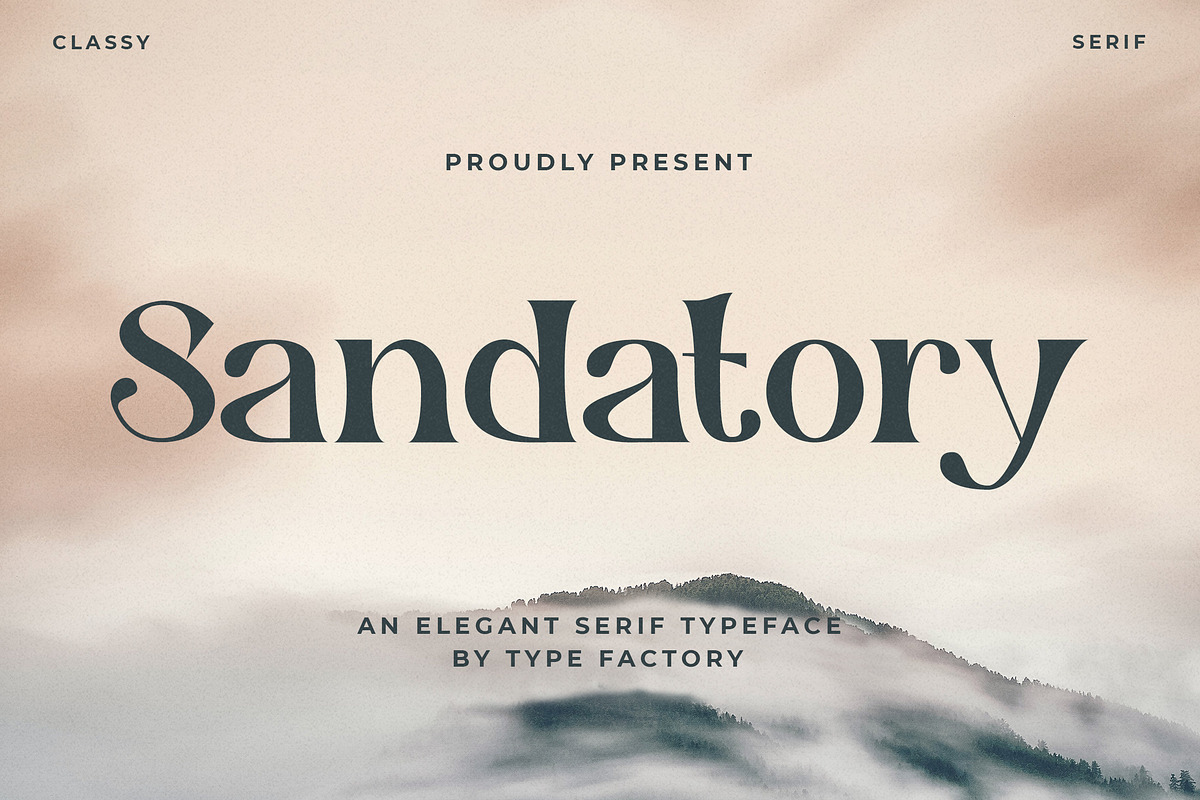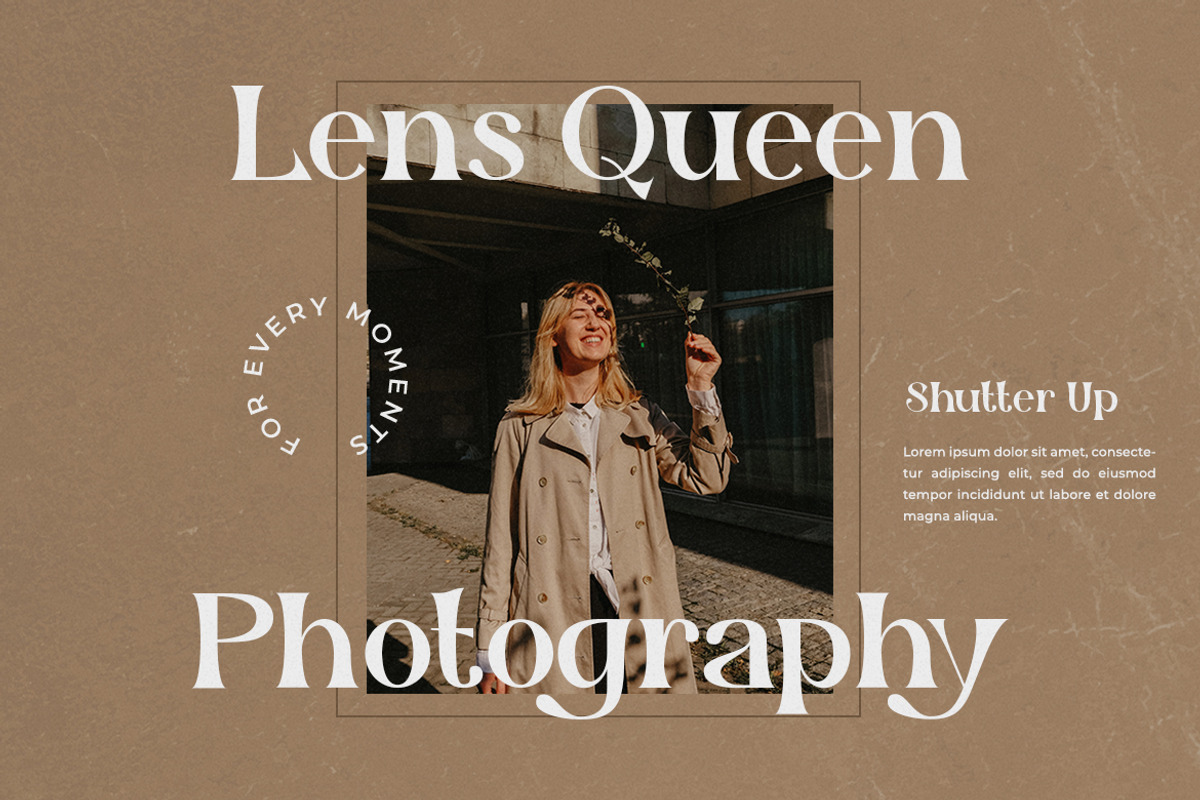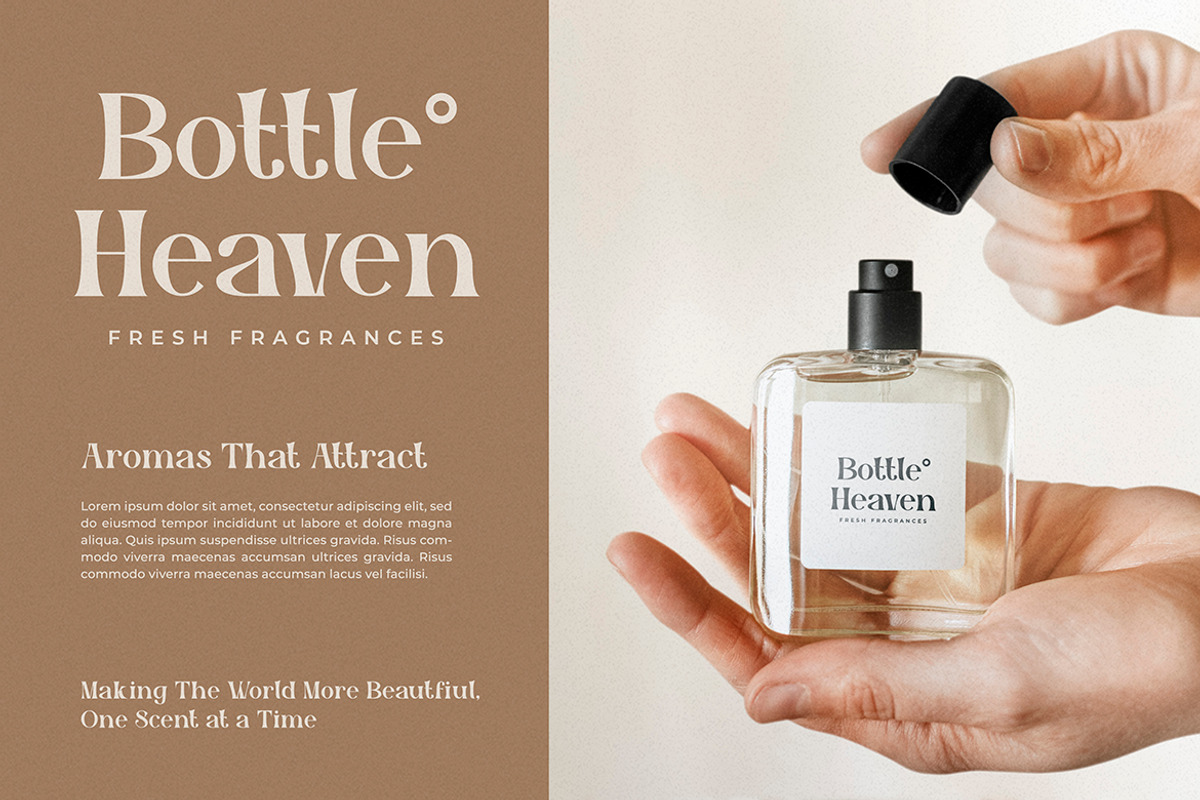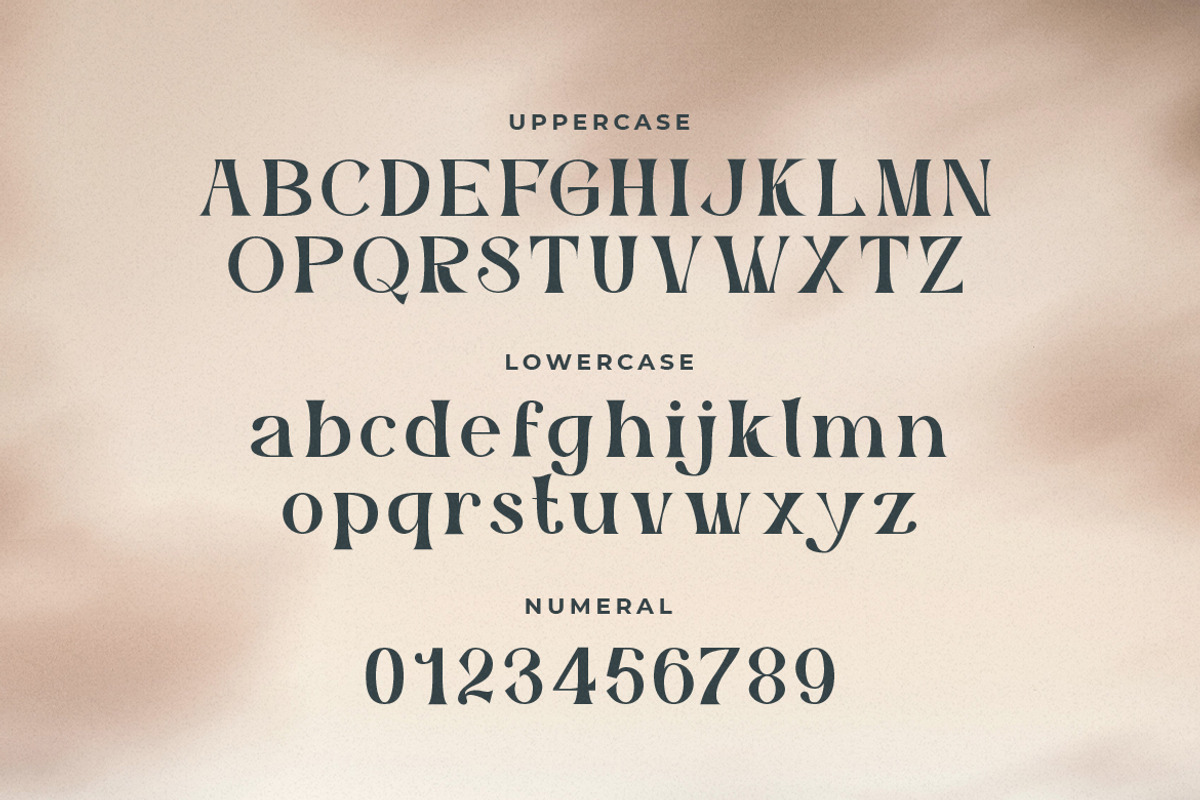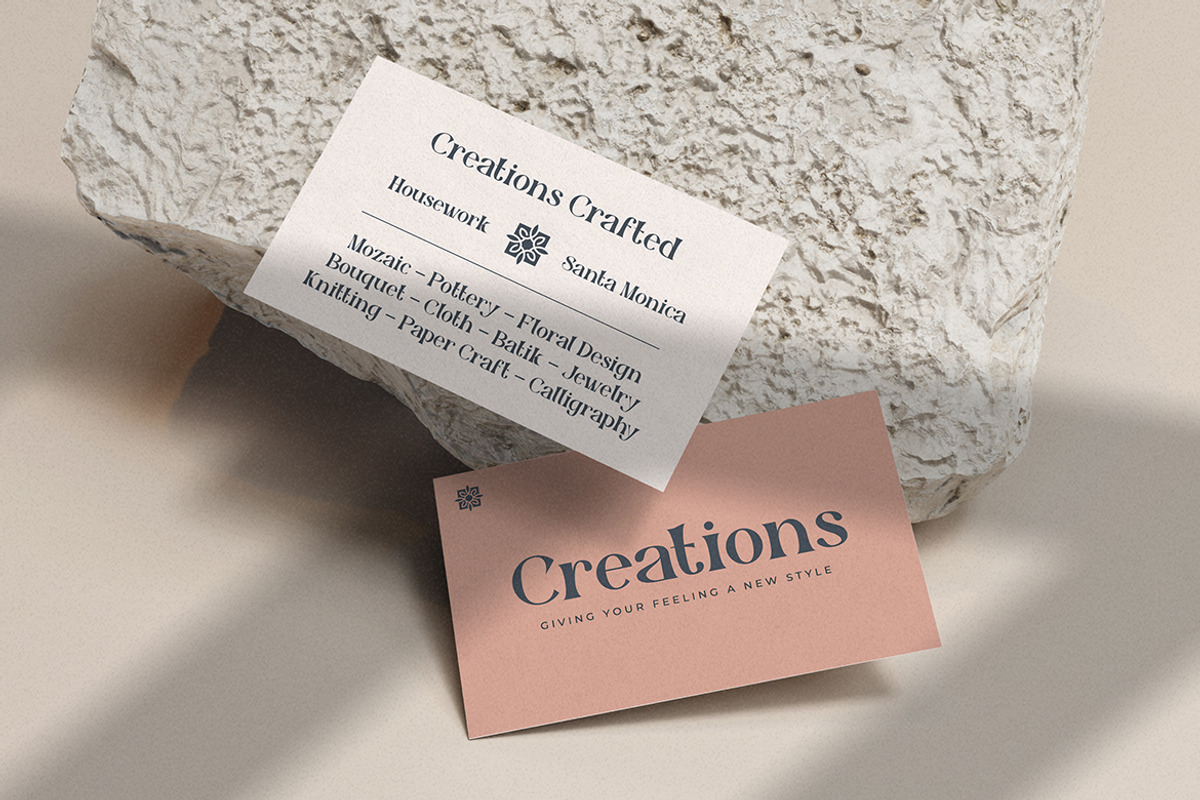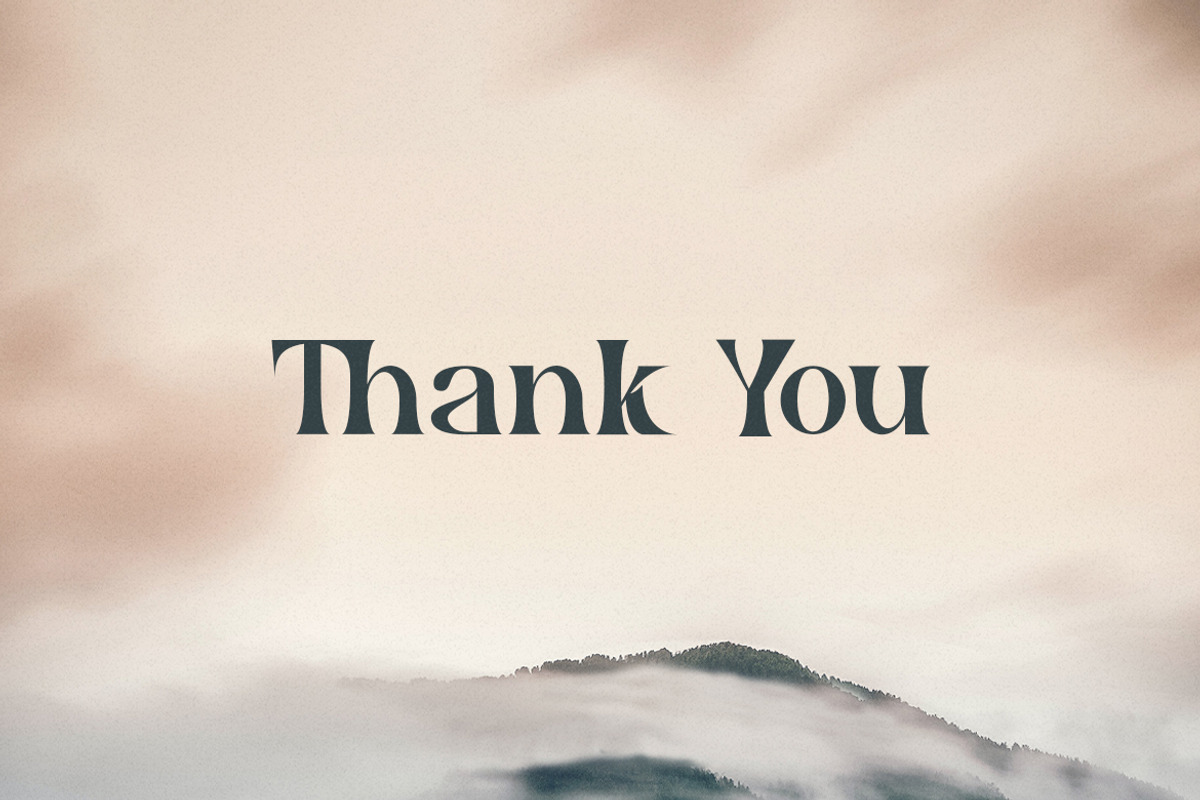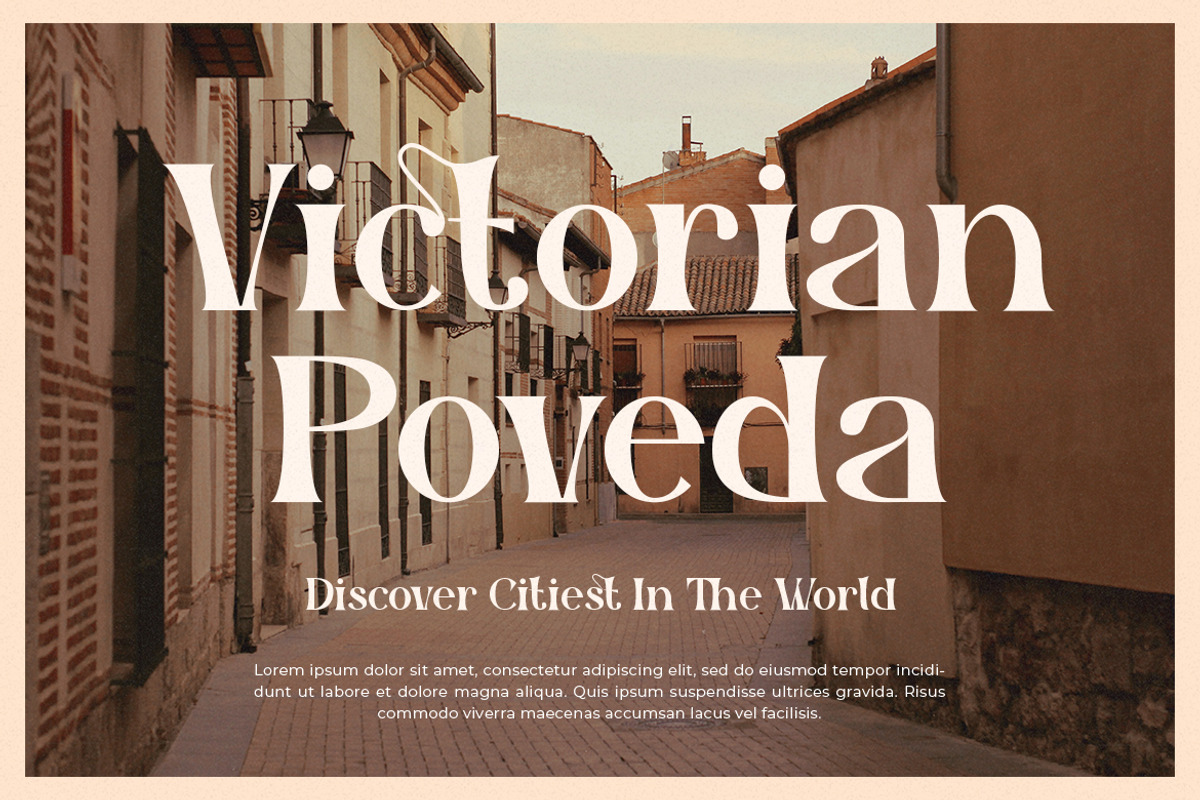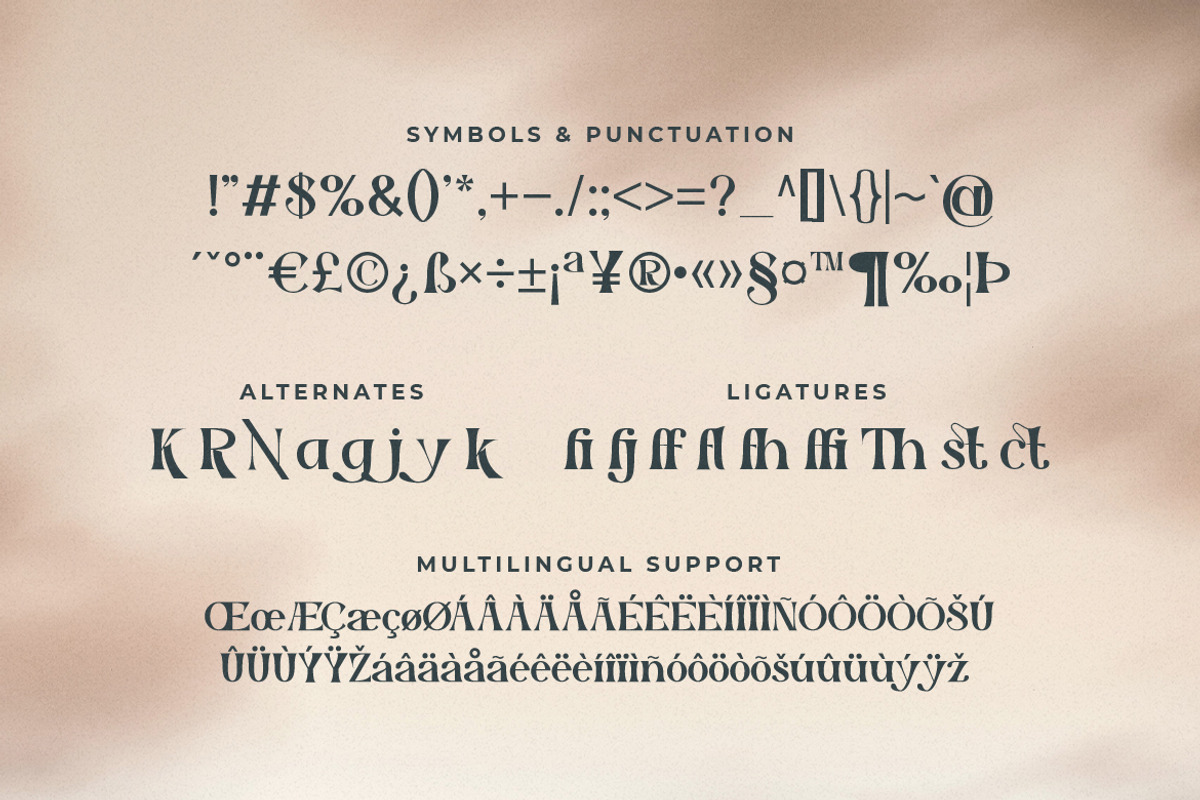
Sandatory - An Elegant Serif
Sandatory is an elegant serif that blends traditional influences into a contemporary aesthetic. Elegantly crafted and easily be matched to an incredibly large set of projects. Use sandatory to achieve an exquisite, yet subtle look and maximum versatility.